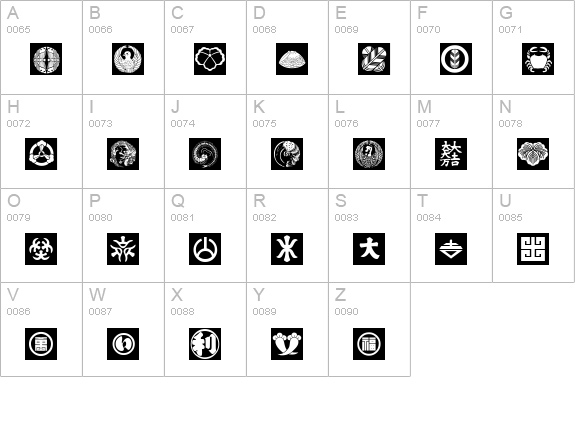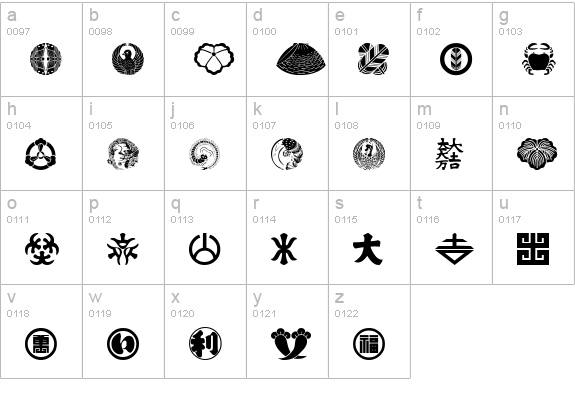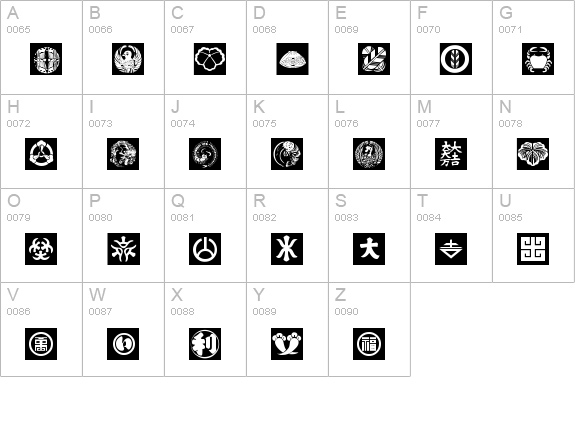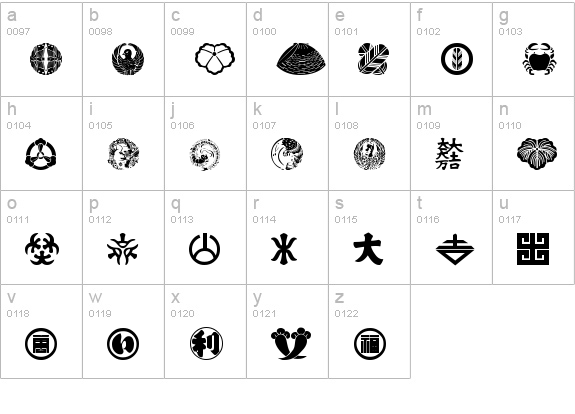
Oriental Icons Font Details
Introducing Oriental Icons font, a captivating and intricate typeface inspired by traditional Asian art and design elements. This stunning font features a harmonious blend of ornate patterns and elegant strokes, perfectly capturing the essence of Eastern culture. Each character in Oriental Icons font is meticulously crafted to evoke a sense of beauty and sophistication, making it ideal for adding a touch of exotic flair to your projects. And the best part? Oriental Icons font is completely free to download at FontsMarket.com! Whether you're working on a branding project, creating invitations, or designing a website, this font will elevate your work to new heights. Embrace the beauty of the East with Oriental Icons font and let your creativity shine. Download it now and start adding a touch of cultural richness to your designs.